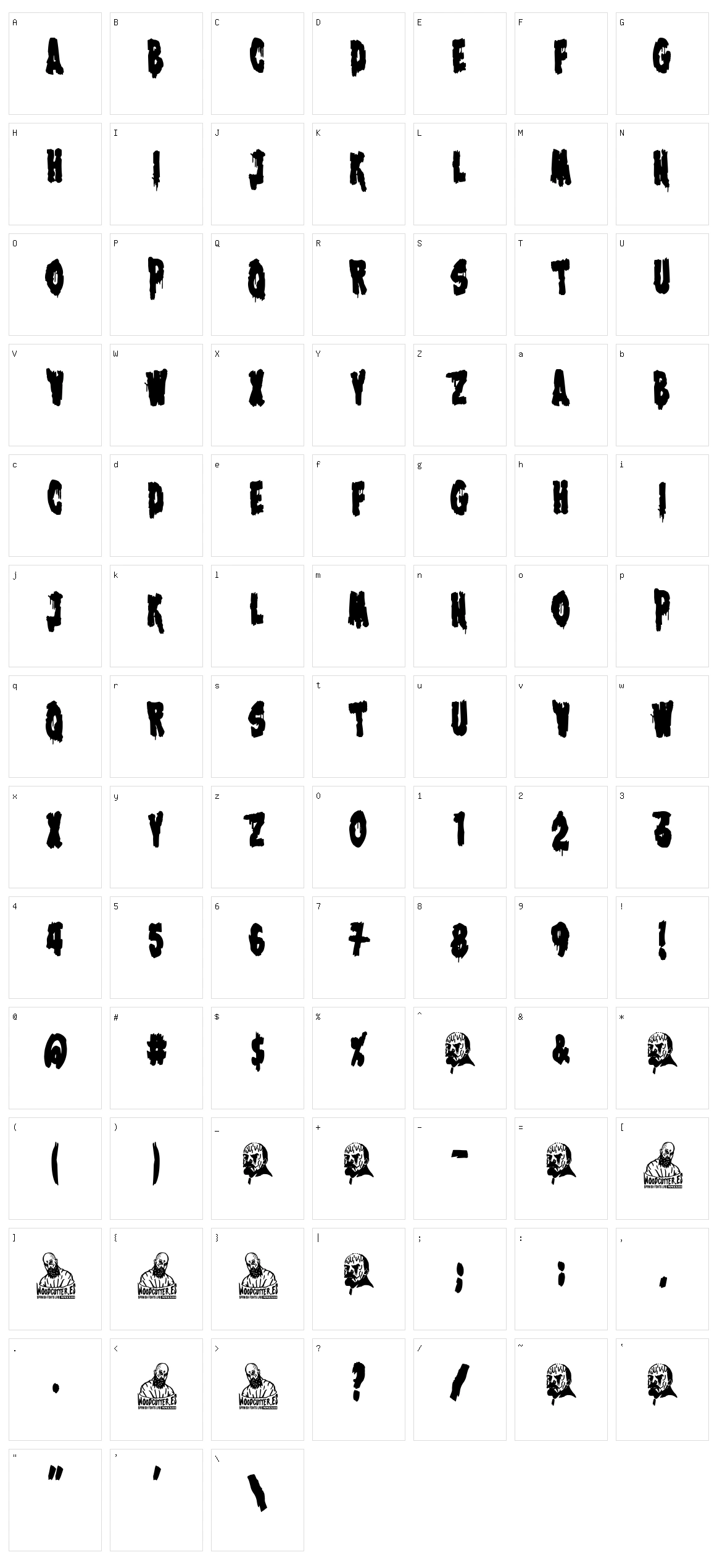
The free font Lenin is a Zombie is carefully designed by Woodcutter, showcasing a thoughtful balance of creativity and usability and falls under the Horror font style. When you download the ZIP file, it contains only 76.72 KB of font files, making it lightweight and quick to download. Please review the license details below to understand permitted usage and distribution rights. If license information is not available, we recommend using this font for personal projects only or contacting the author directly for commercial usage permissions.